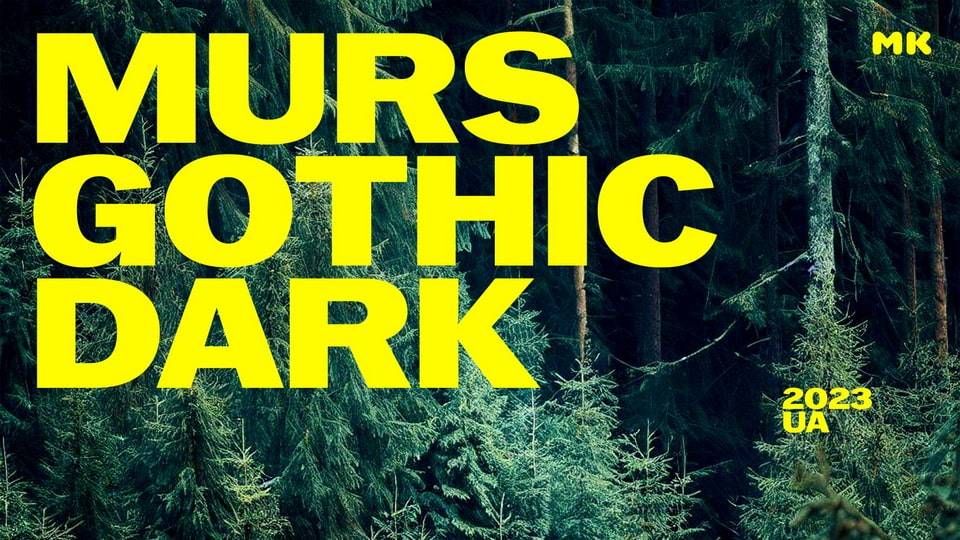
Download Murs Gothic Wide Black font, a bold sans serif with sharp dynamic forms. It is a collective image of American gothics of the early 20th century. Murs Gothic has wide proportions, tight letter spacing, and increased contrast.
Designer: Maksym Kobuzan